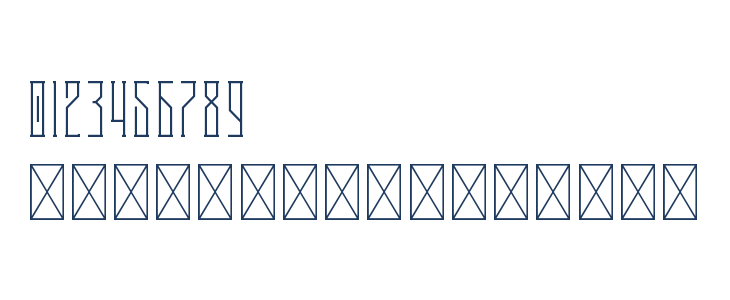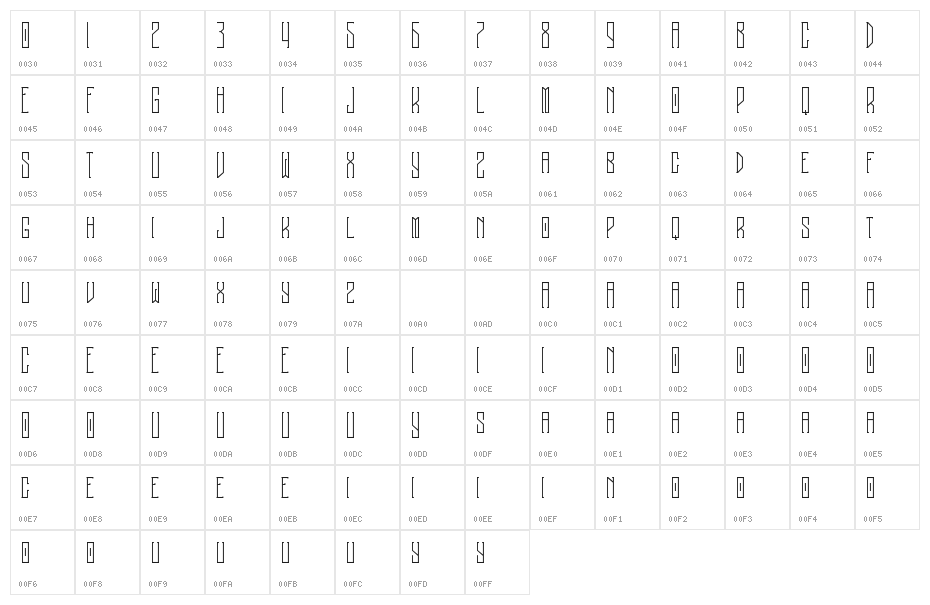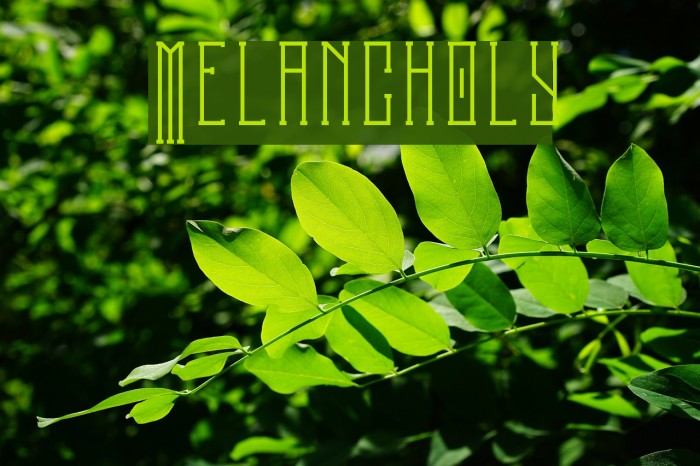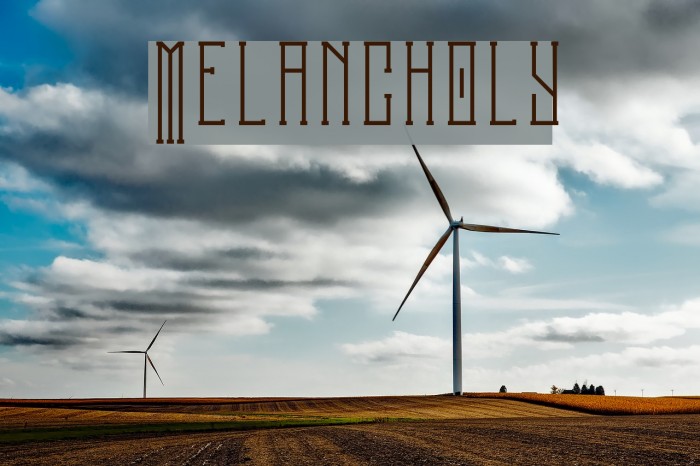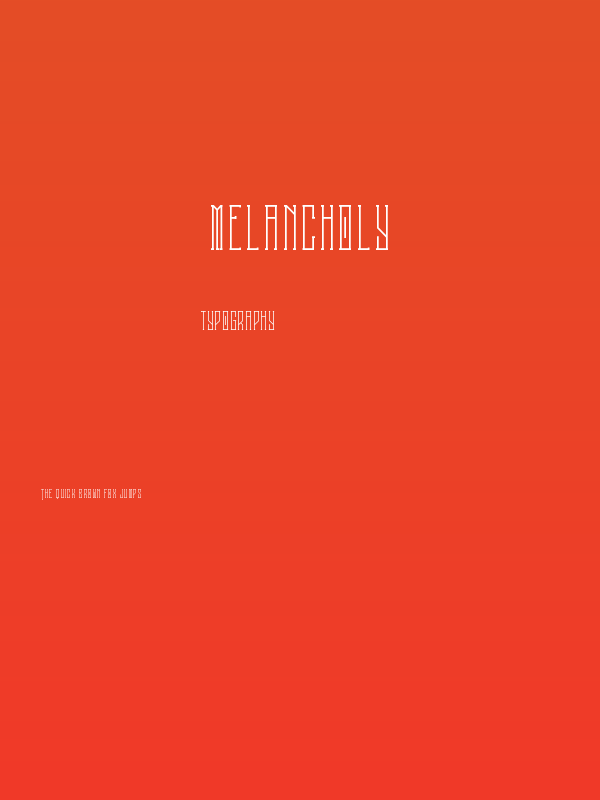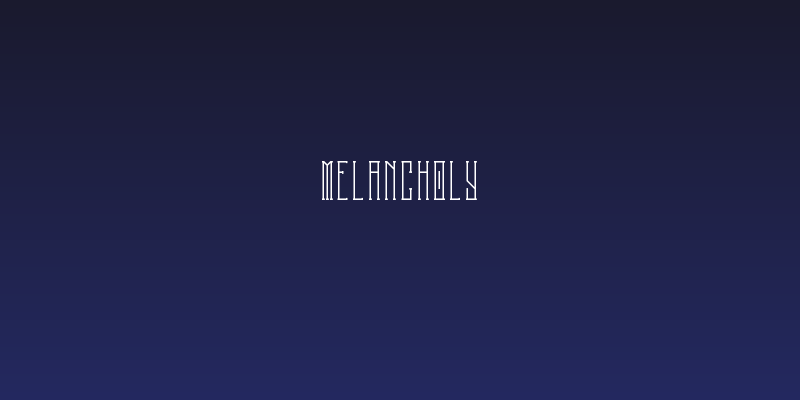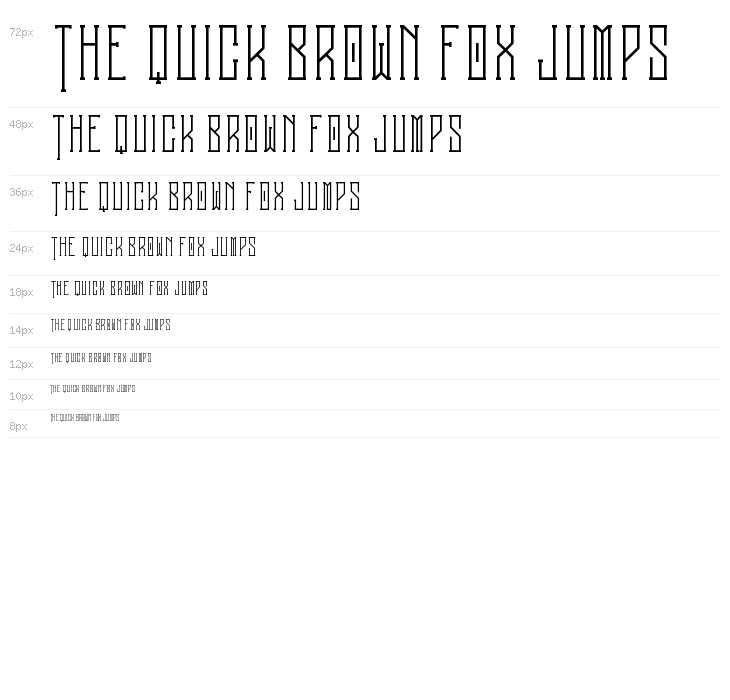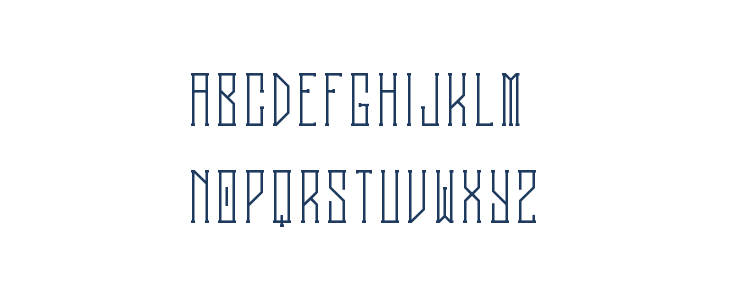
Melancholy Font
Melancholy Description
This font features a tall, narrow design with sharp, angular edges that give it a futuristic and geometric appearance. The characters are constructed with consistent vertical strokes and minimal curves, creating a sense of uniformity and precision. The uppercase letters are particularly striking, with unique angles and cuts that add a distinctive flair. The numbers follow the same stylistic approach, ensuring cohesion across all characters. This font's clean lines and modern aesthetic make it suitable for projects that require a bold, contemporary look.